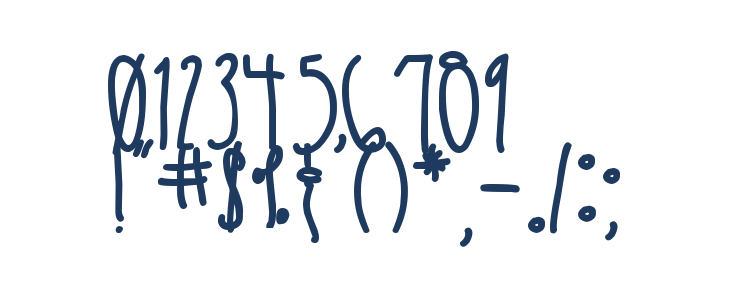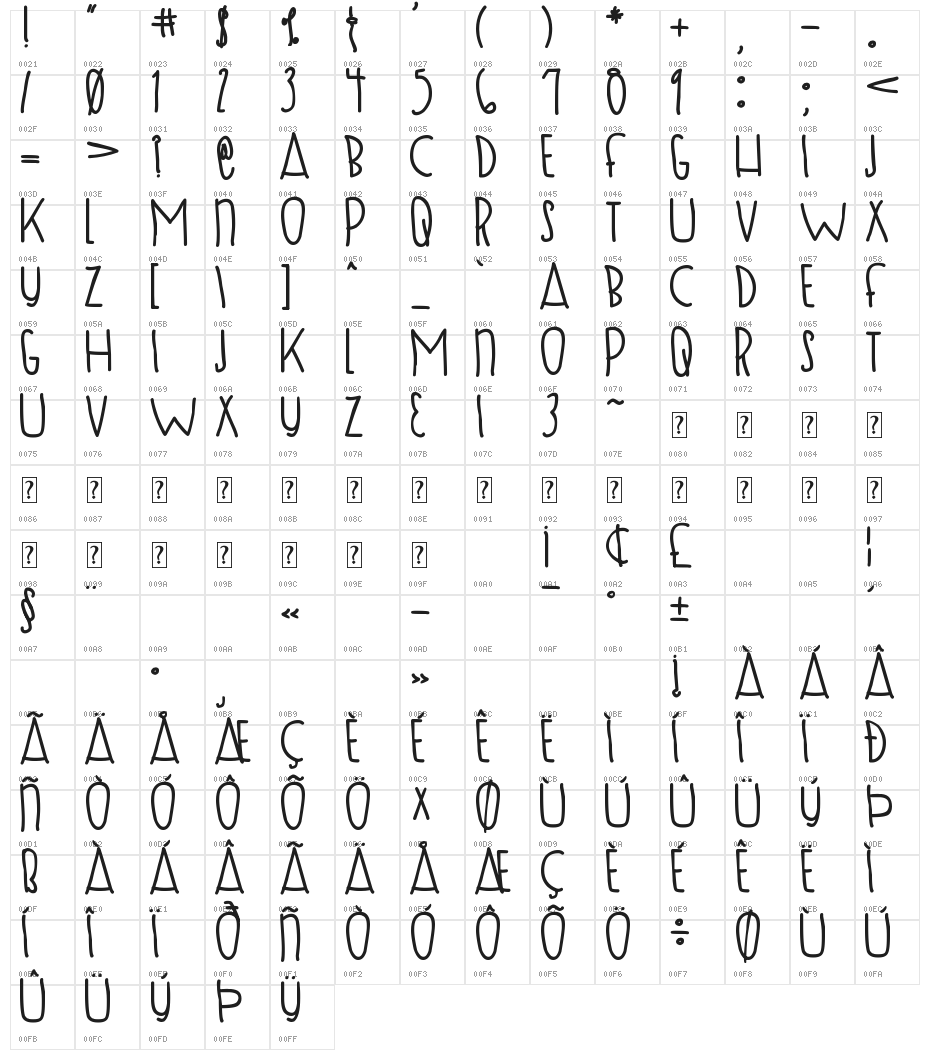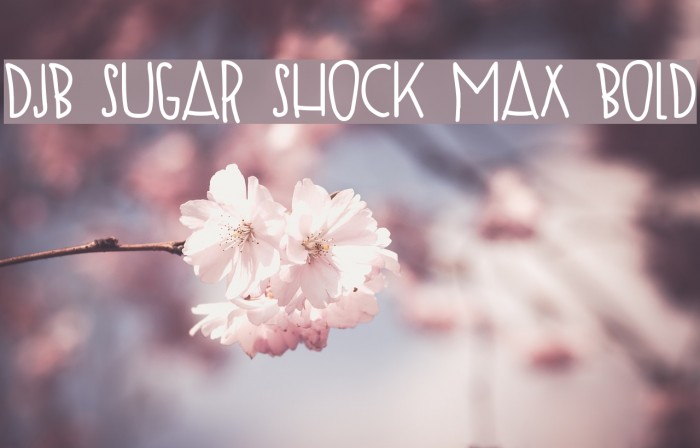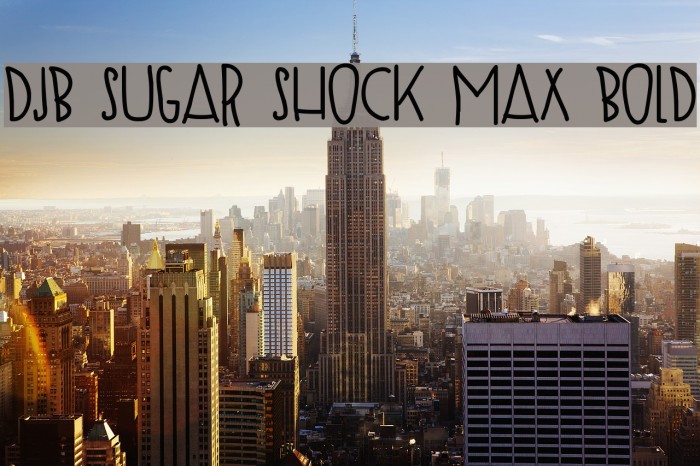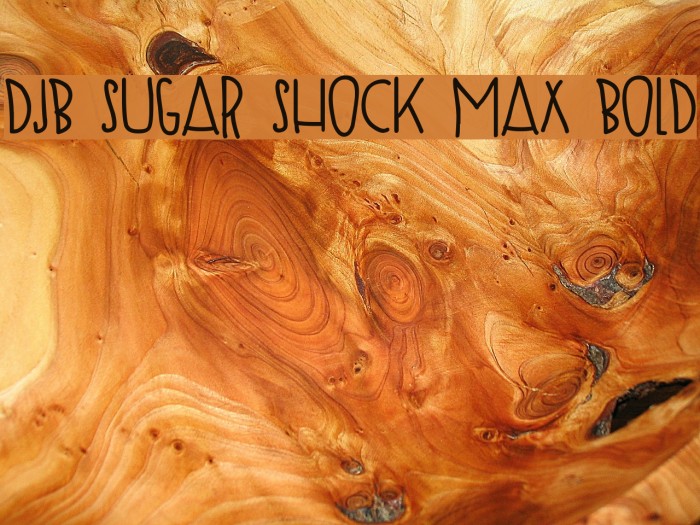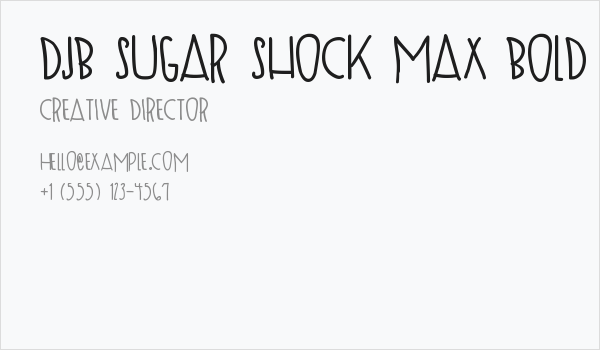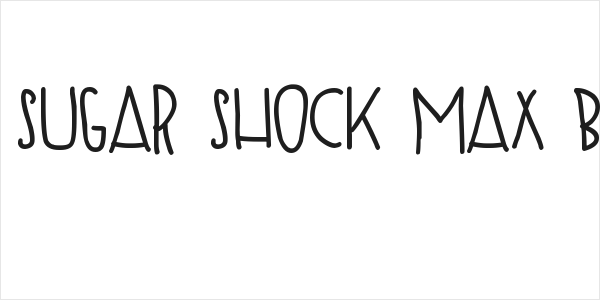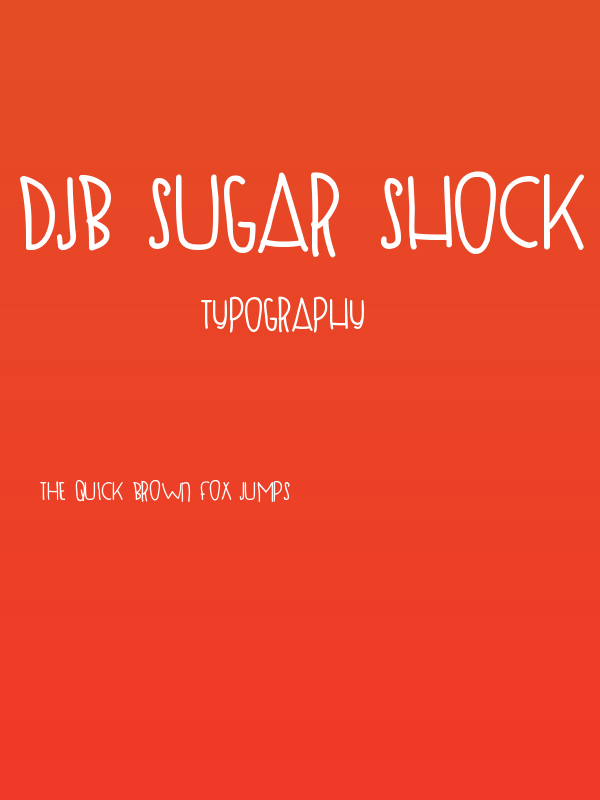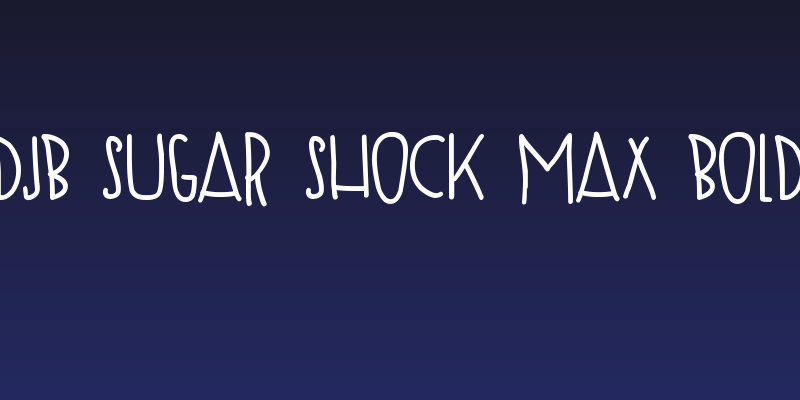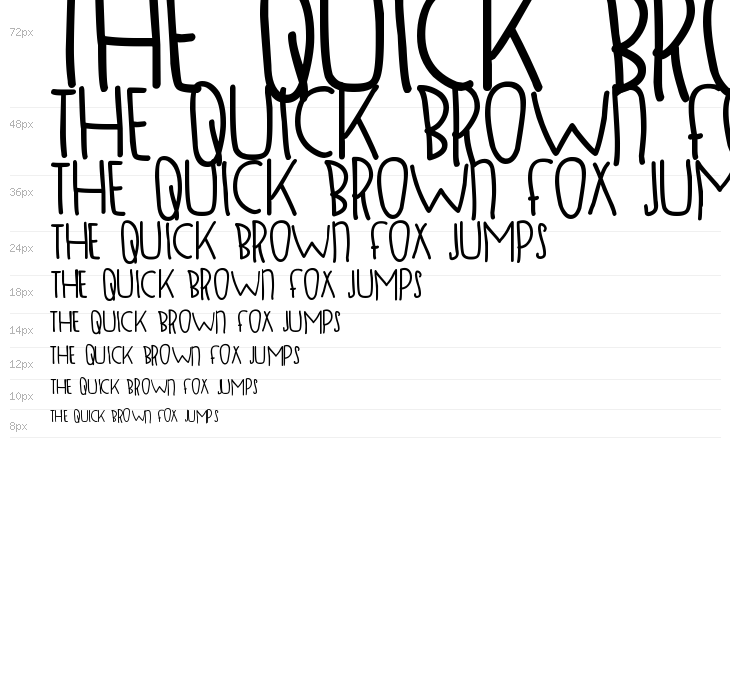
DJB SUGAR SHOCK MAX Bold Font
DJB SUGAR SHOCK MAX Bold Description
This playful and energetic font features a handwritten style with bold, rounded strokes that give it a lively and informal appearance. The letters are slightly irregular, adding a whimsical touch that enhances its charm. The uppercase and lowercase alphabets maintain a consistent style, with tall, narrow characters that create a sense of movement and dynamism. The numbers and special characters follow the same playful design, making them perfect for creative projects. The font's unique personality makes it ideal for designs that require a fun and engaging look.
Overall StylePlayful, Energetic, Informal
Proposed ProjectsGreat for children's books, playful branding, greeting cards, and creative posters.